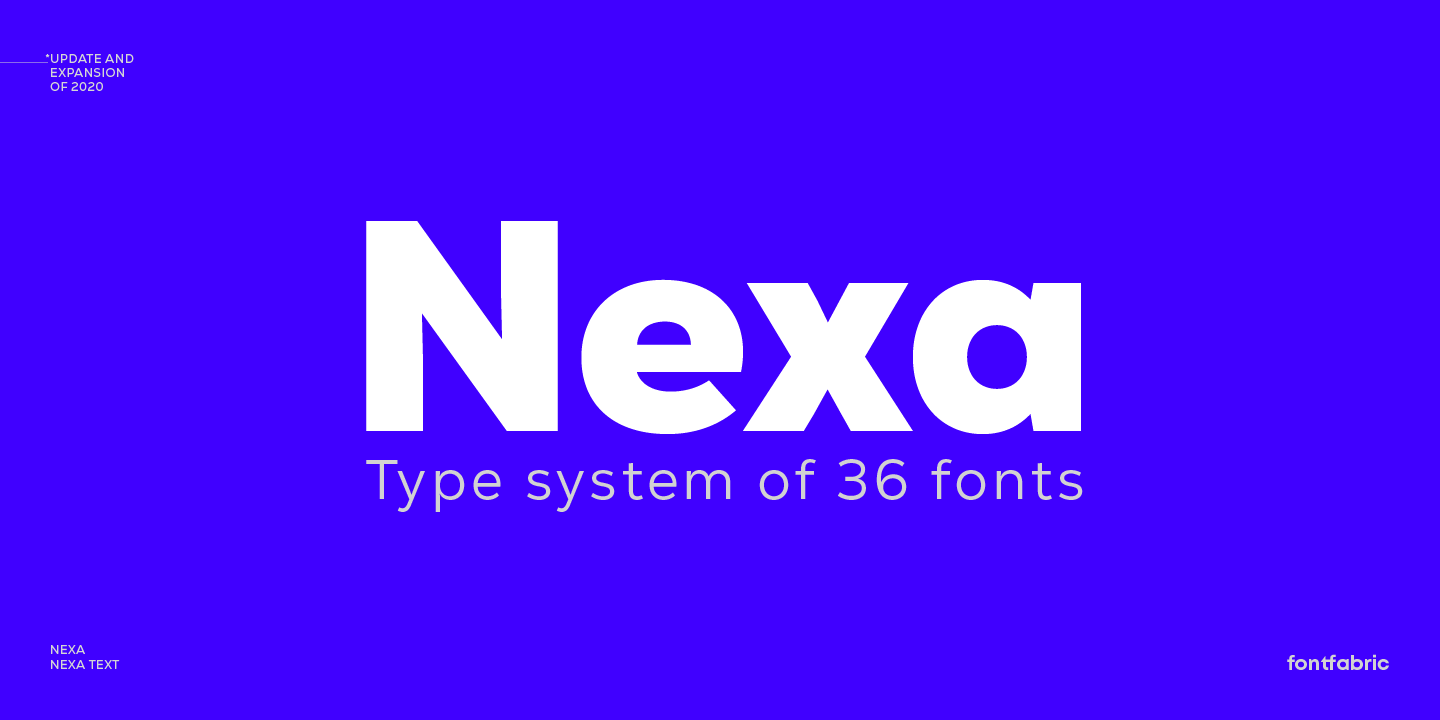
Nexa Font is perfect for futuristic technology branding, modern startup logos, contemporary web interfaces, digital innovation campaigns, tech conference materials, progressive corporate identities, and cutting-edge product packaging that requires forward-thinking, next-generation typography.
This font is exciting because it embodies the vision of tomorrow's design landscape, featuring sleek, progressive letterforms that convey innovation, technological advancement, and the endless possibilities of future digital experiences while maintaining crisp contemporary readability.
The Nexa Font family includes thin, light, regular, bold, and black weights with condensed variants, offering uppercase and lowercase letters, futuristic numerals, tech symbols, modern punctuation marks, and progressive elements designed for next-generation applications.
Innovation designers consistently choose Nexa Font Free Download for projects requiring authentic future-forward character and technological sophistication. This visionary typeface transforms contemporary communications into compelling statements of digital evolution that immediately resonate with audiences seeking genuine innovation and next-generation technology experiences. The font's progressive character makes it exceptionally effective for tech startups, digital agencies, and innovation companies where technological advancement and future vision must be communicated through every visual touchpoint. Its forward-thinking design bridges current technology trends with tomorrow's digital possibilities, making it invaluable for brands pioneering technological change and digital transformation. The meticulously engineered letterforms maintain their futuristic appeal across mobile applications and large-scale digital displays, ensuring consistent brand recognition and technological authority. Whether you're developing tech startup identities, creating innovation summit materials, or designing next-generation product interfaces, this typeface provides the visionary voice and visual sophistication that distinguishes genuine technology leaders from conventional digital services, establishing immediate credibility among tech-savvy audiences who demand cutting-edge design excellence and expect the highest standards of technological innovation in their digital interactions and future-focused brand experiences.